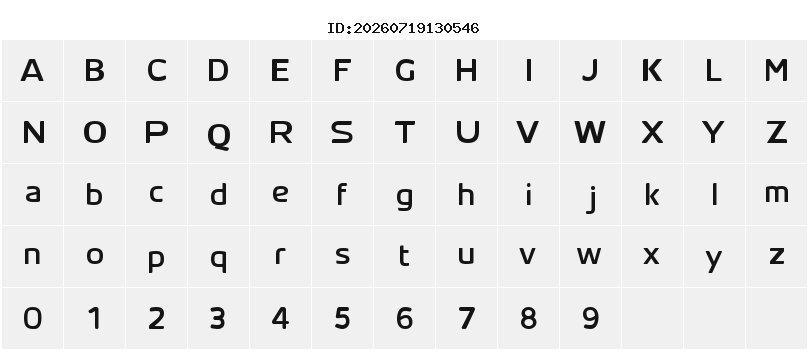
Cloud World Preview
• Font Name: Cloud World
• Font ID: Cloud World:Version 1.00
• Full Font Name: Cloud World
• PostScript Name: Cloud World
• Character Count: 1600
About Cloud World.ttf
Cloud World.ttf is a modern, elegant sans-serif font designed for ultimate readability and visual harmony. Perfect for branding, headlines, web design, and print materials.